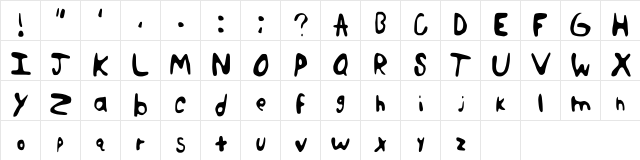
Rorschach M Smooth Regular
Design Context for Rorschach M Smooth Typeface
Rorschach M Smooth takes a measured approach to typography — its balanced proportions and neutral character make it a reliable workhorse for both digital and print work.